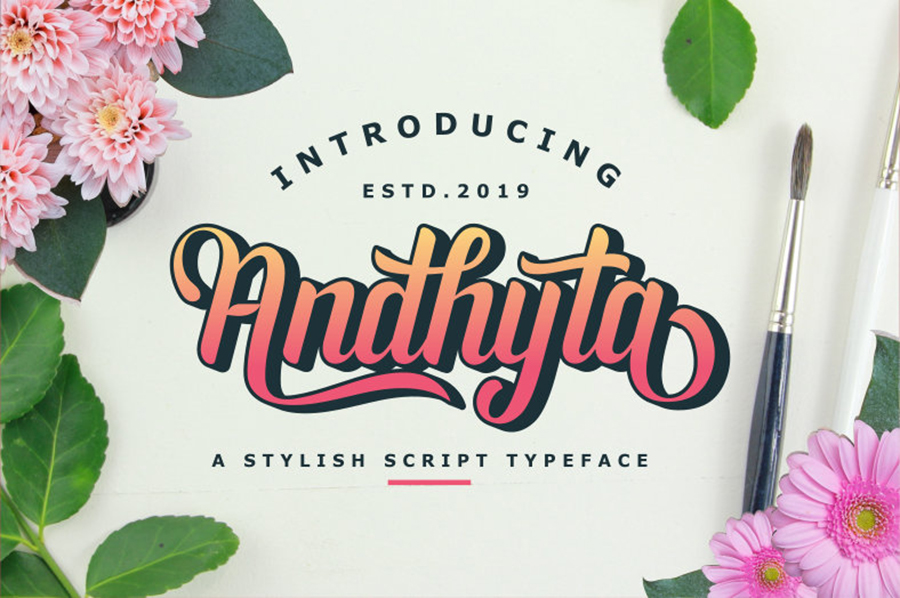
Andhyta - Stylish Script Typeface Font
About Andhyta - Stylish Script Typeface
Andhyta is a fun and playful handwritten font with a bold feel. It will turn any design project into a stand out!